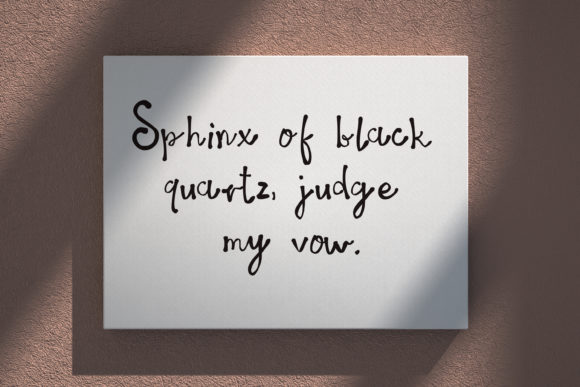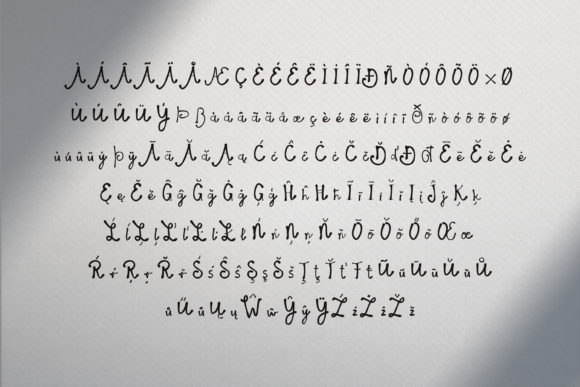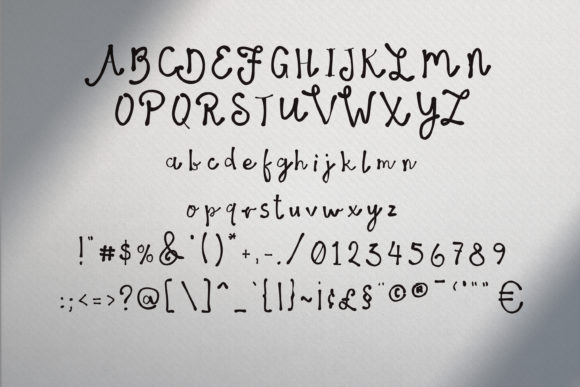
Sammuel Font
About Sammuel Font
Sammuel is a gorgeous and unique handwritten font. Its flowing style makes it incredibly fit for a wide variety of designs. Use it for wedding invitations, greeting cards, birthday cards and so much more, and elevate your projects to the highest level!